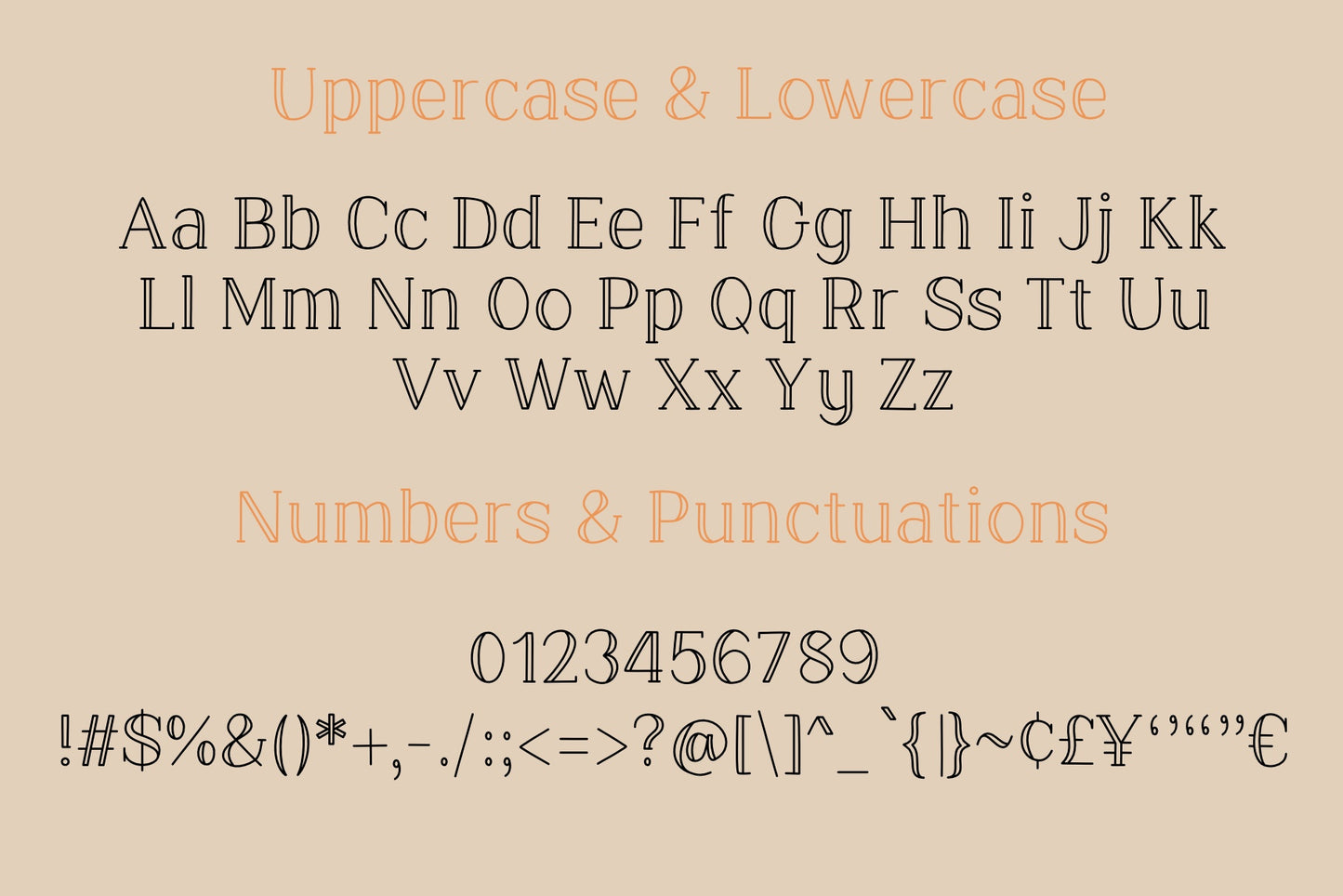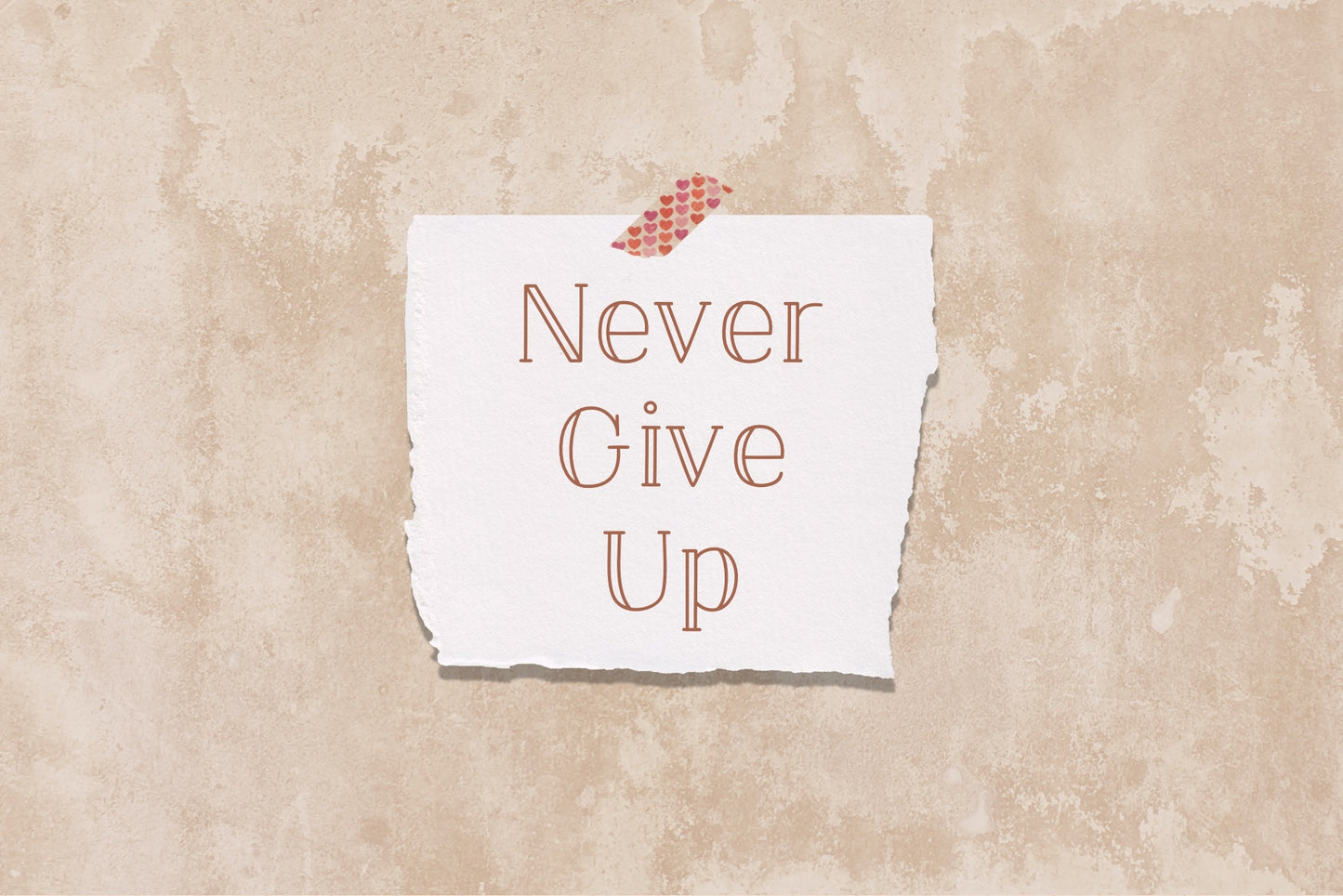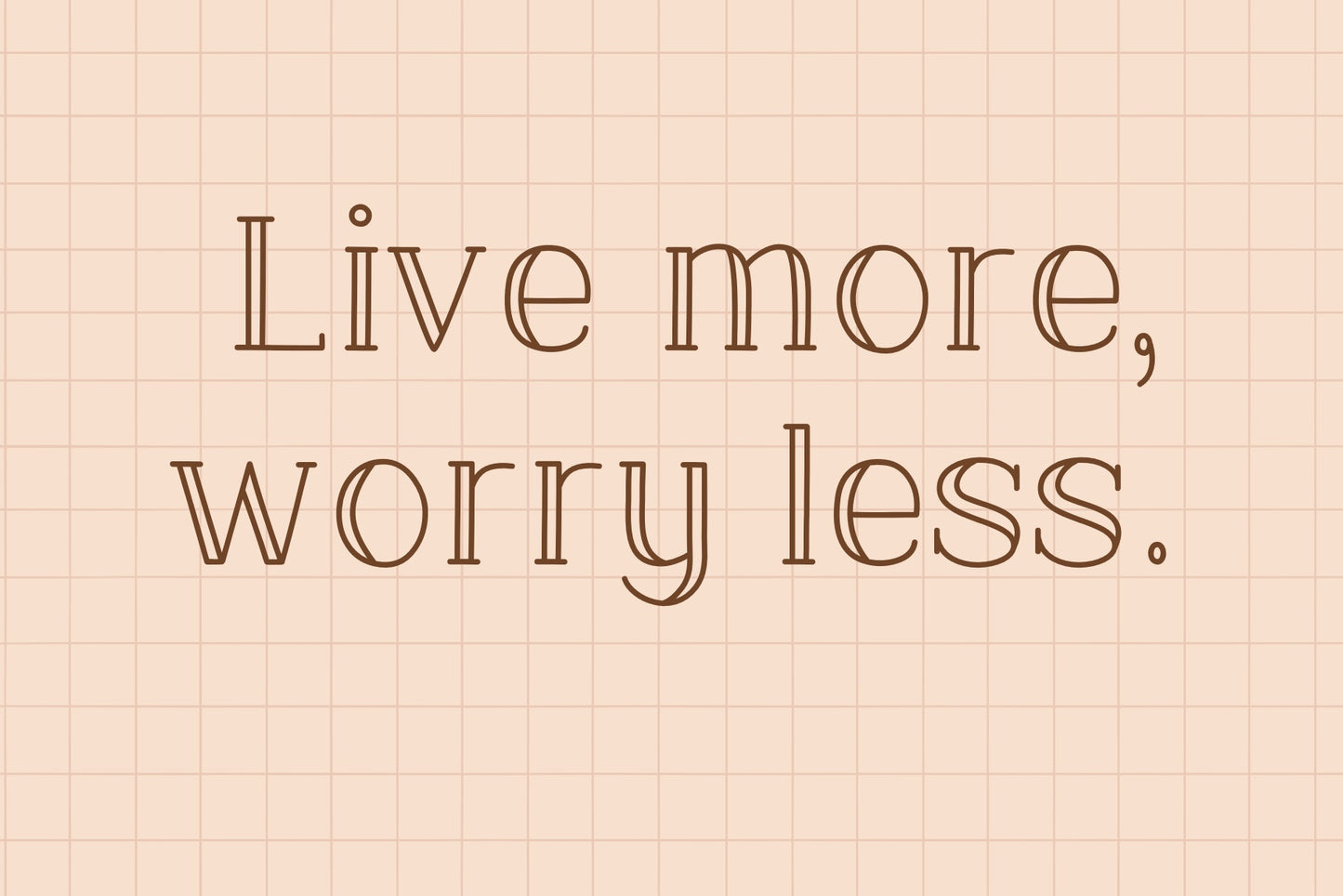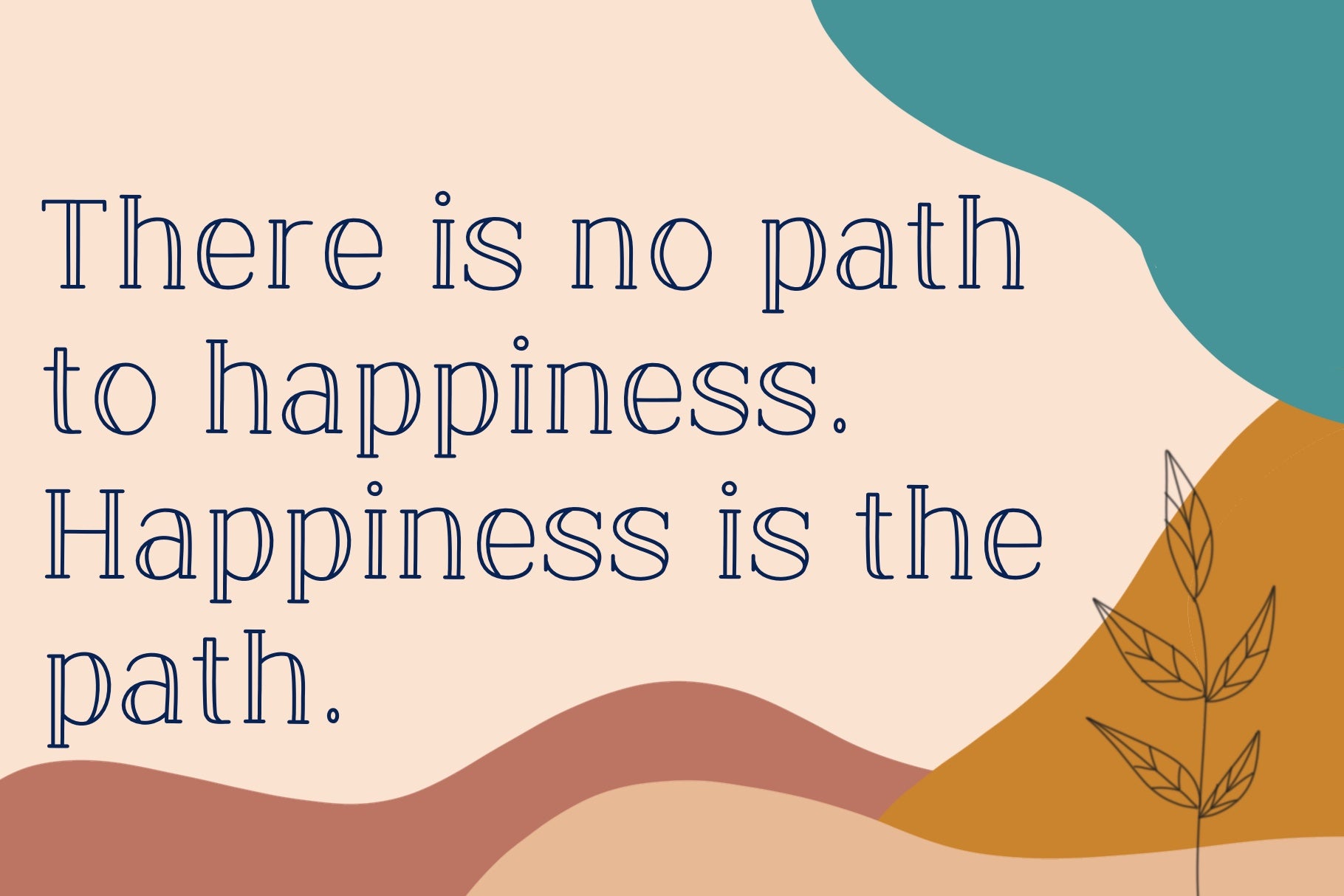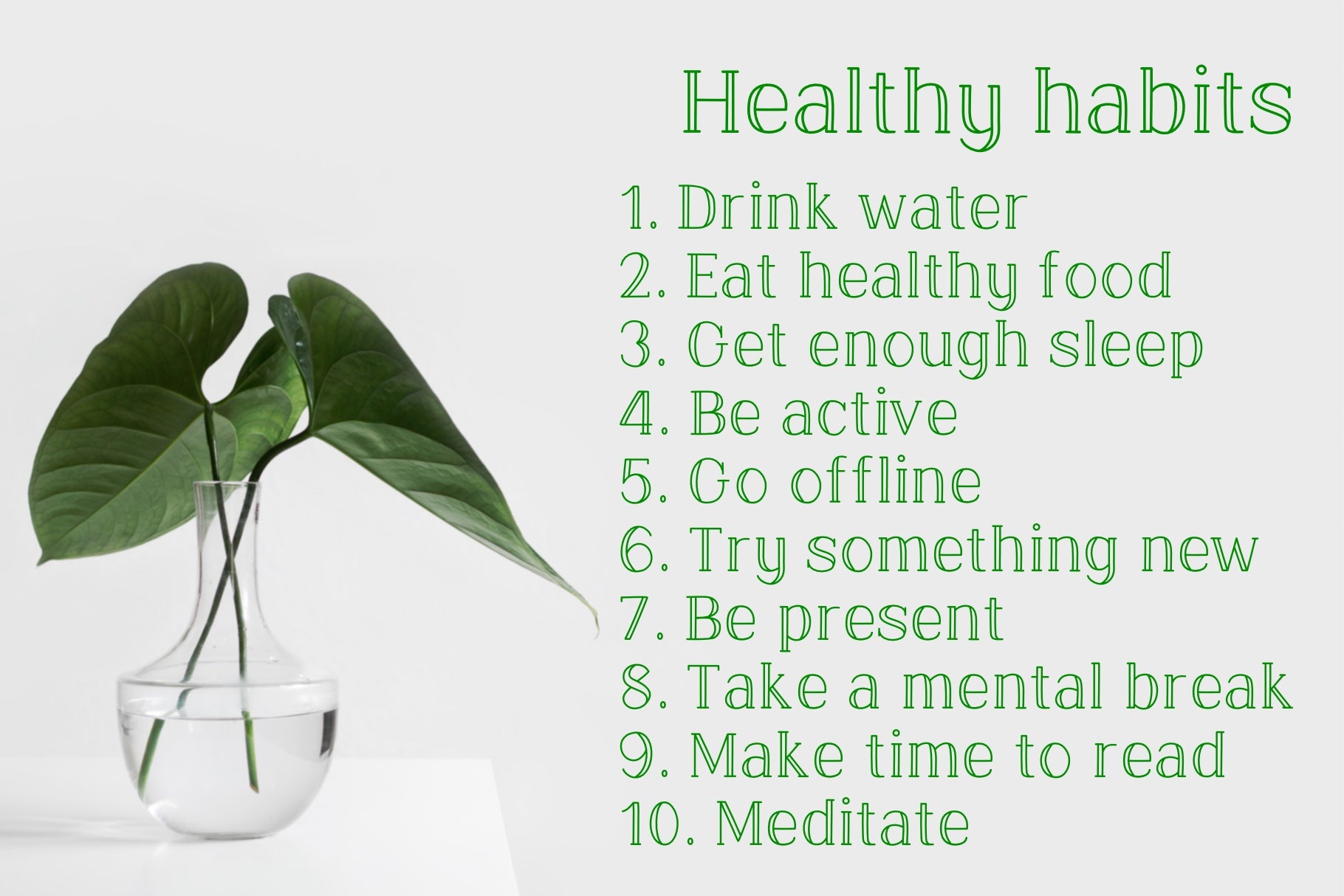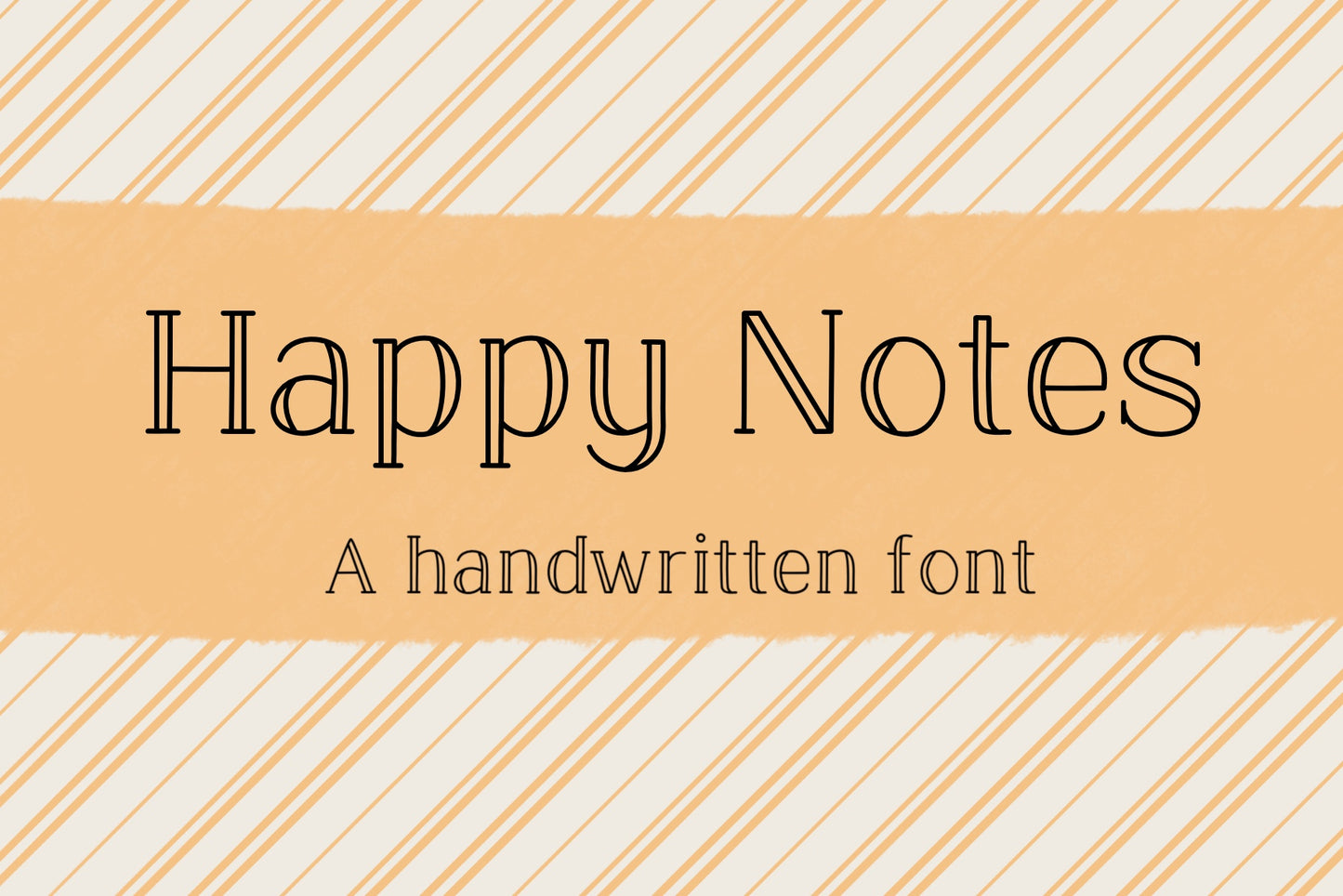
Handwritten Font - Happy Notes
Happy Notes is a neat and clean handwritten font by KJunStudio.
You can use this font in various projects such as note-taking, digital planner, blog post, branding, logo, poster, invitation card, greeting card, decorations, and so on. You can use this font for both commercial and personal use.